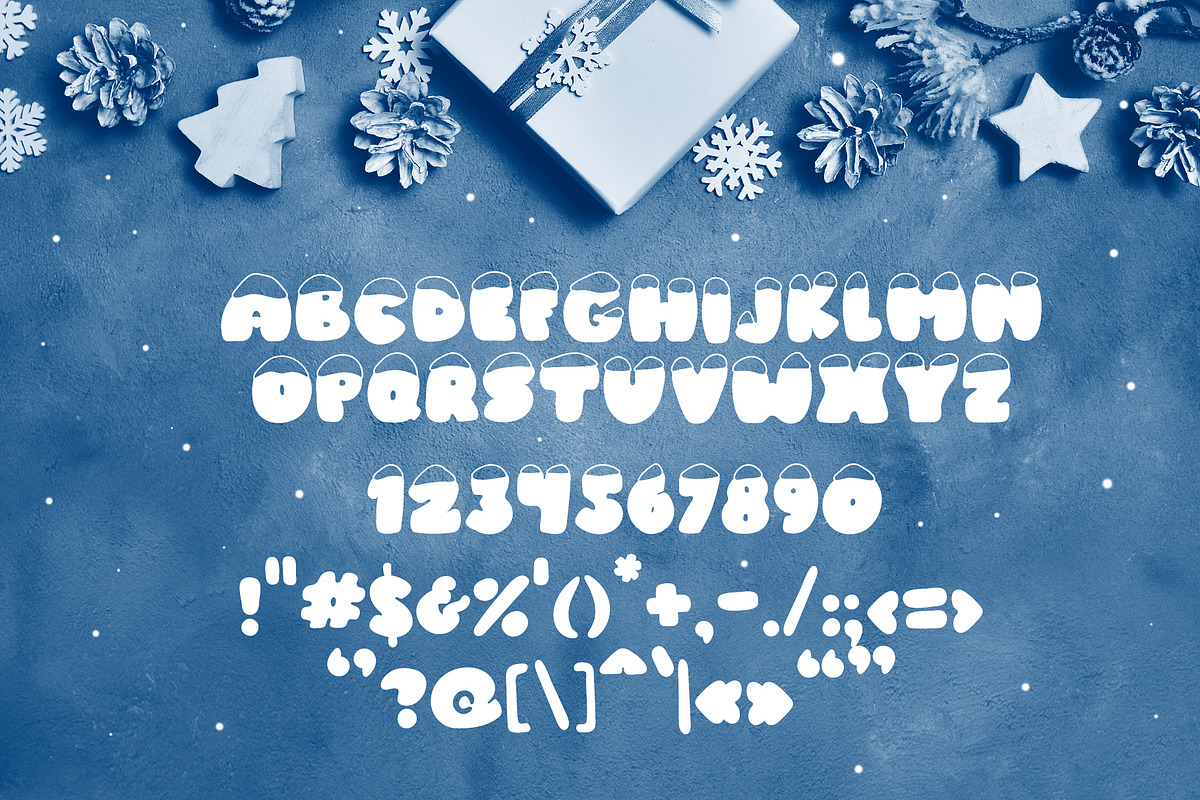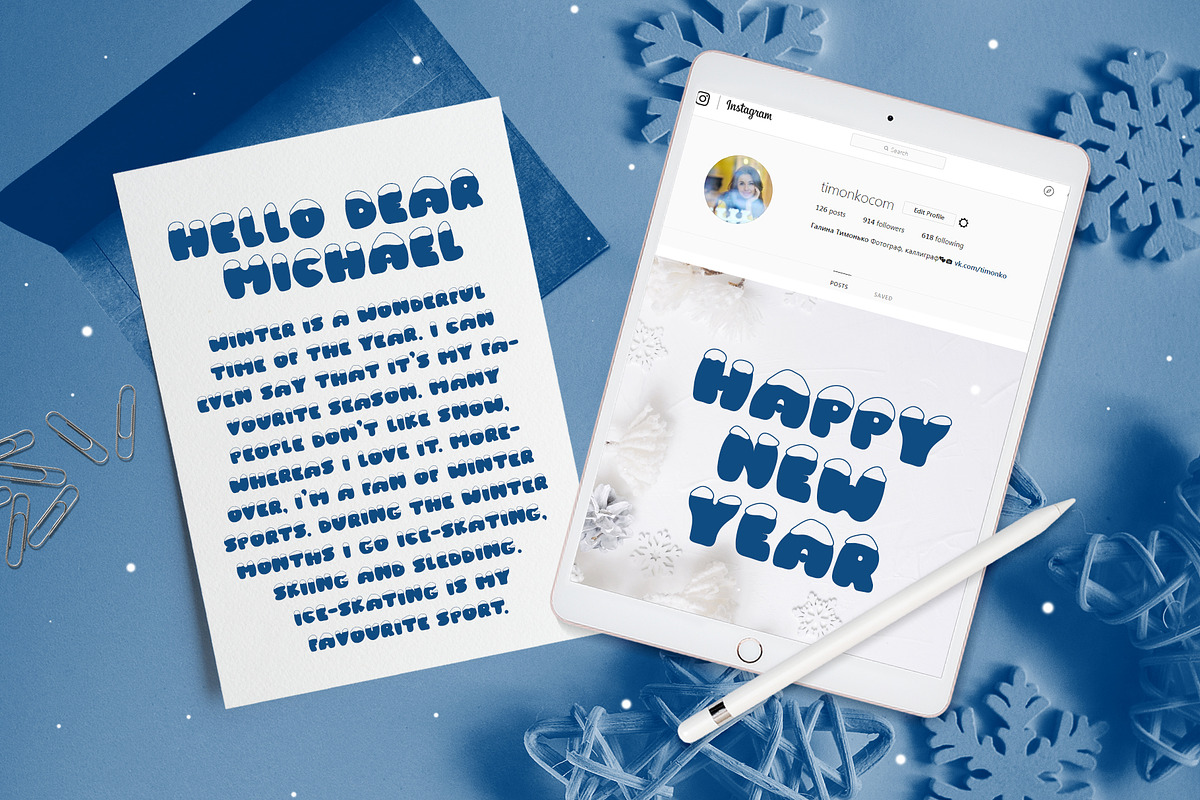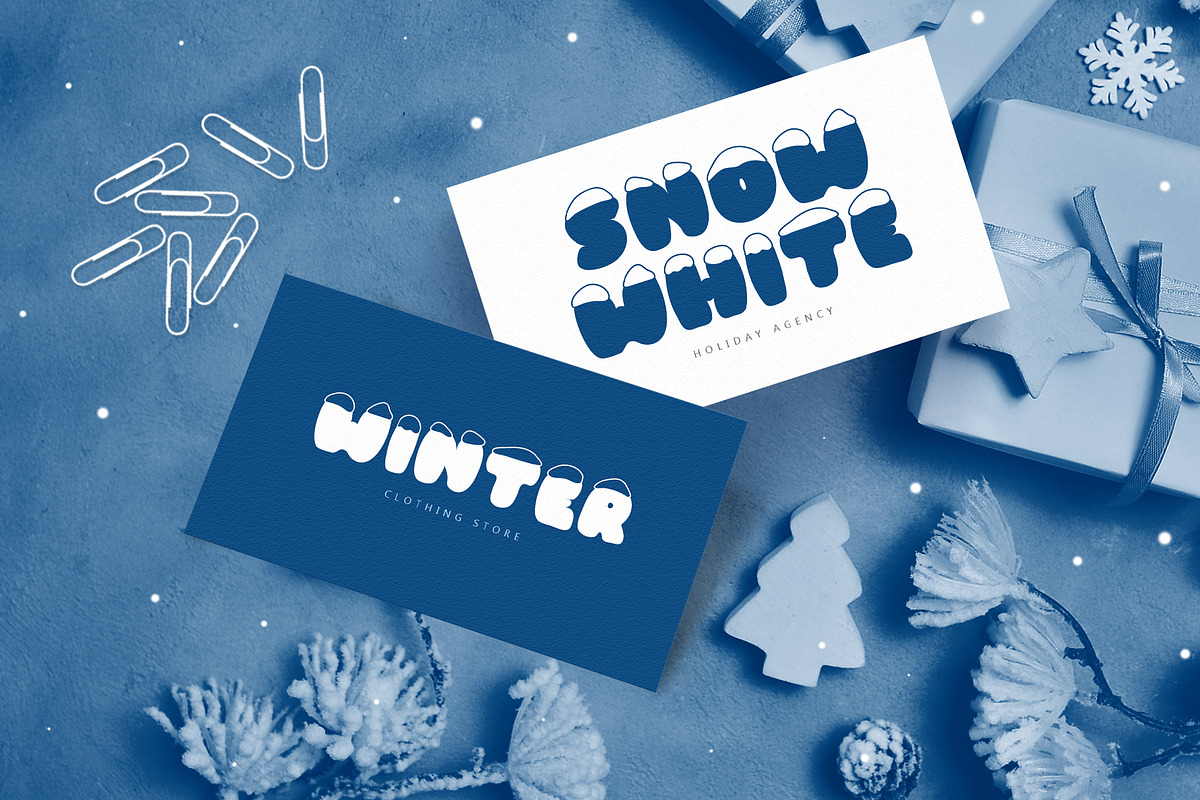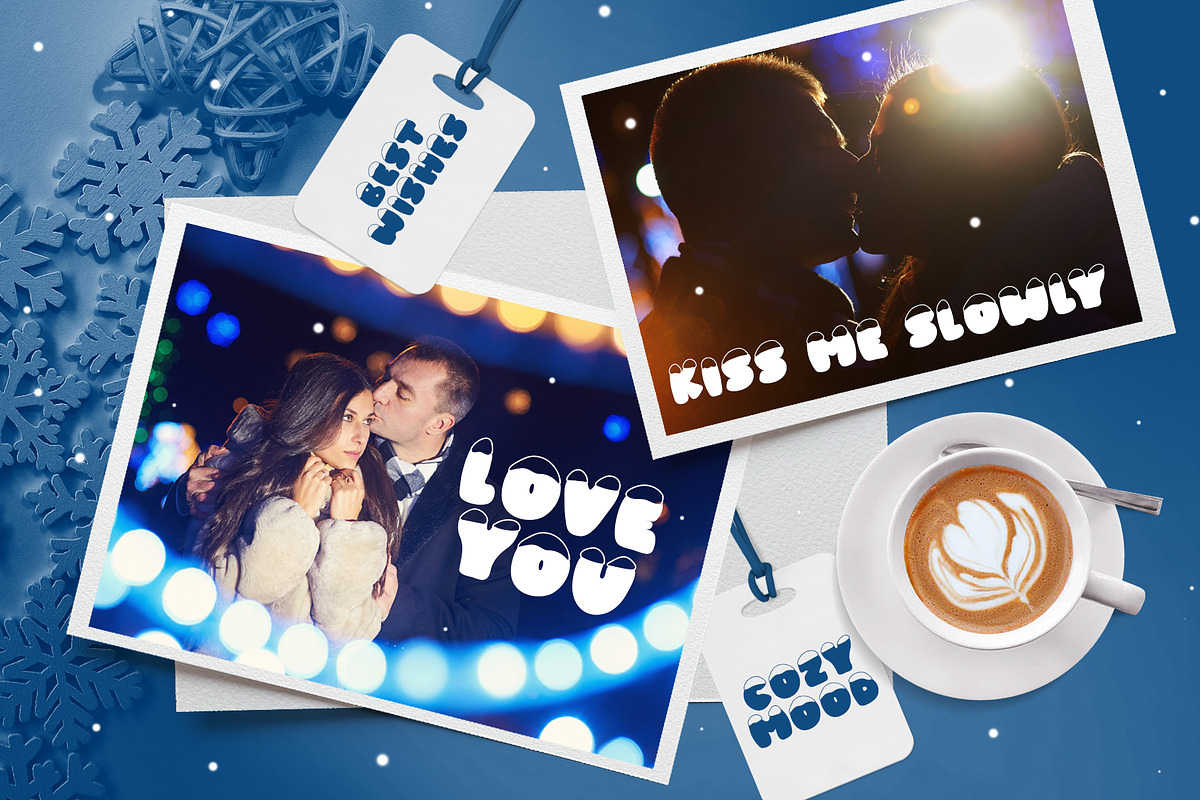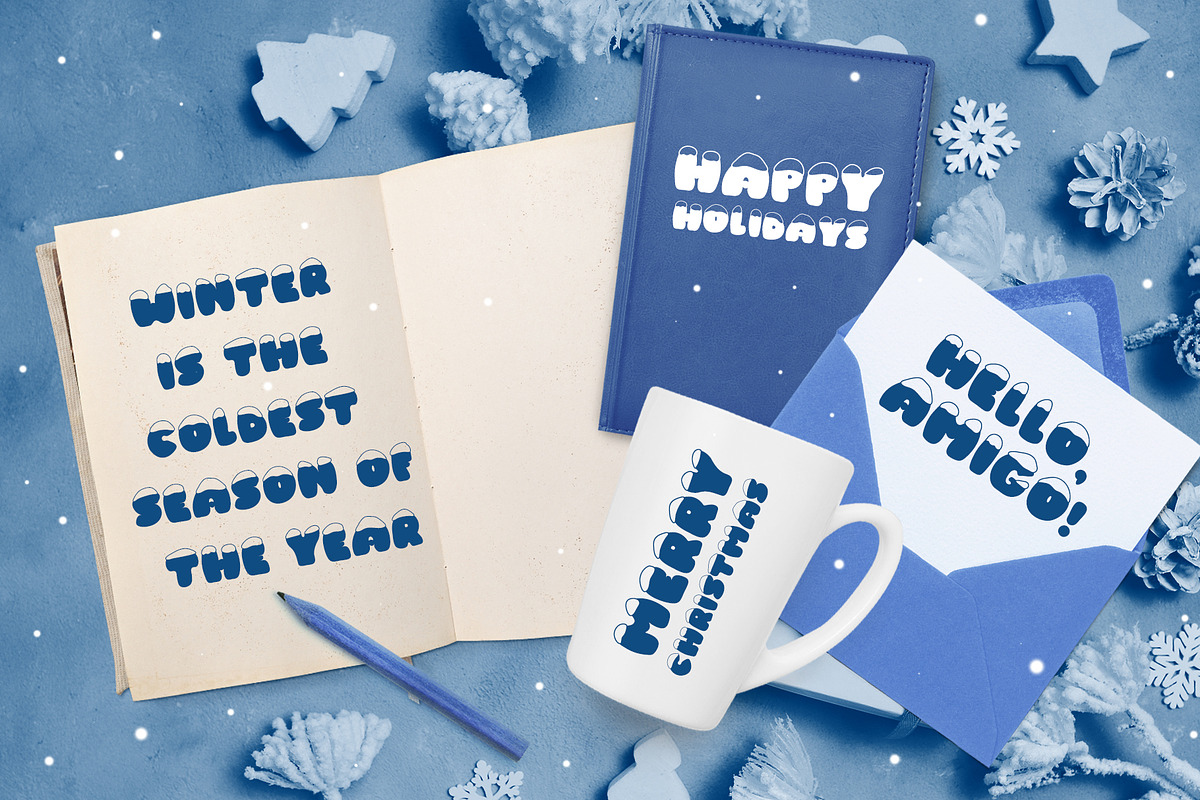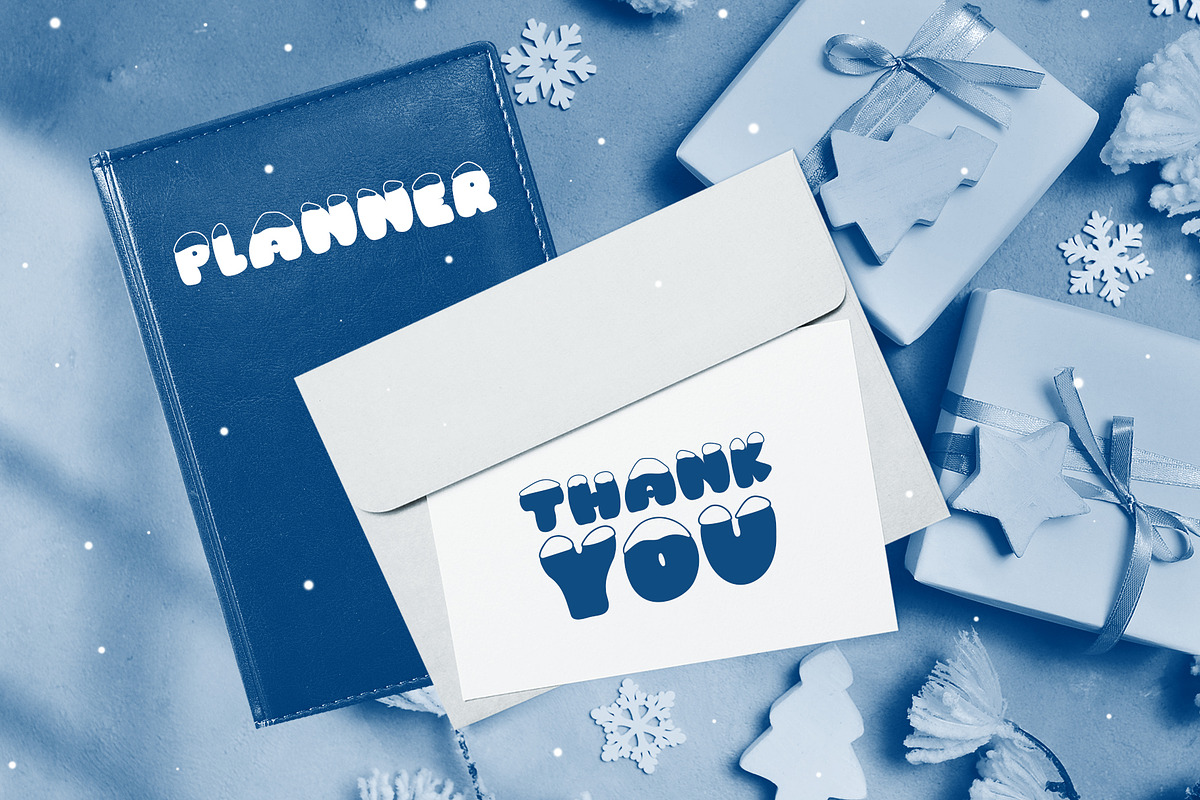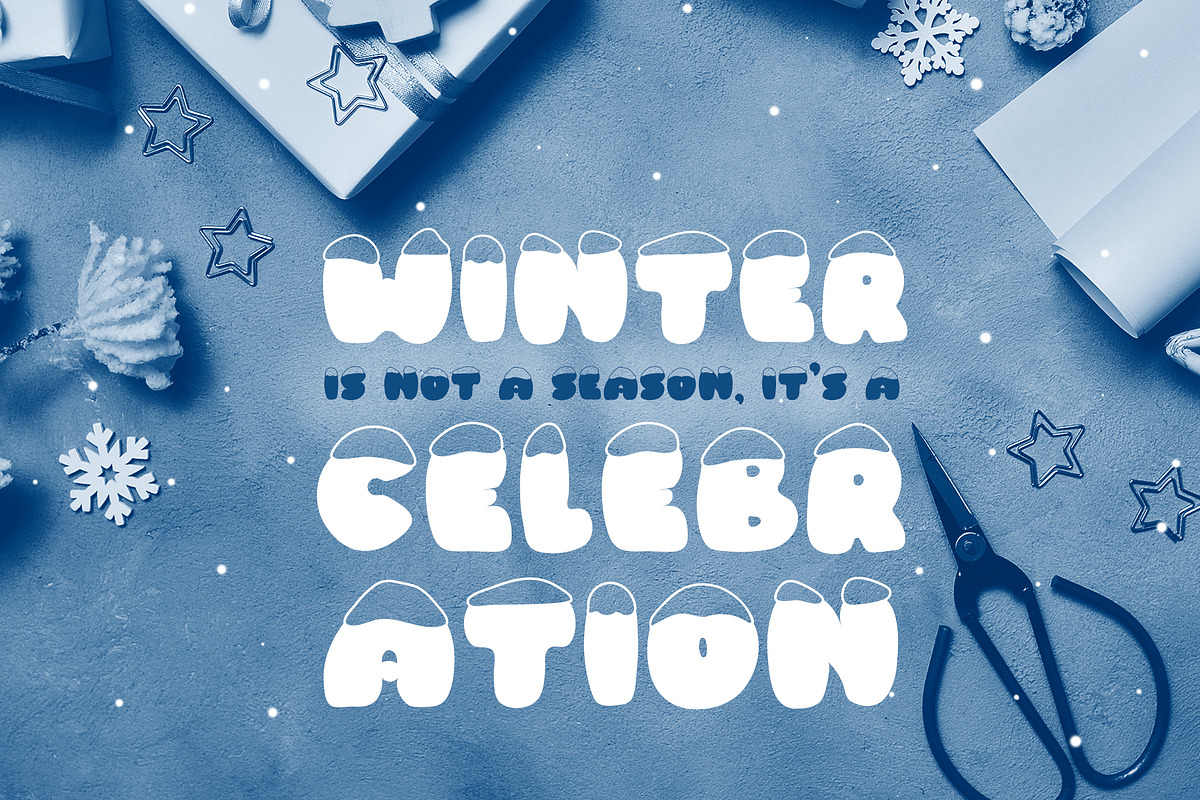
Frosty Joy Hand Drawn Display Font
Winter handmade Frosty Joy Hand Drawn Display Font is modern display font.
Frosty Joy Hand Drawn Display Font is beautiful instrument for designers, blogers and everybody who loves doodle scandinavian or hygge style. Beautiful and puffy letters crushed by snow will be a exelent for children's book design.
Frosty Joy Hand Drawn Display Font has only capital letters. It`s mapped to regular keyboard keys, so you don't need any additional programs to use them.
Titles for kid`s book, scrapbook, logo, icon, phrases or quotes for winter greeting cards (Christmas or New Year holidays), photo overlay, short phrases, children’s book, gift shops tag, presentation in social media Pinterest, Instagram, Facebook or other.